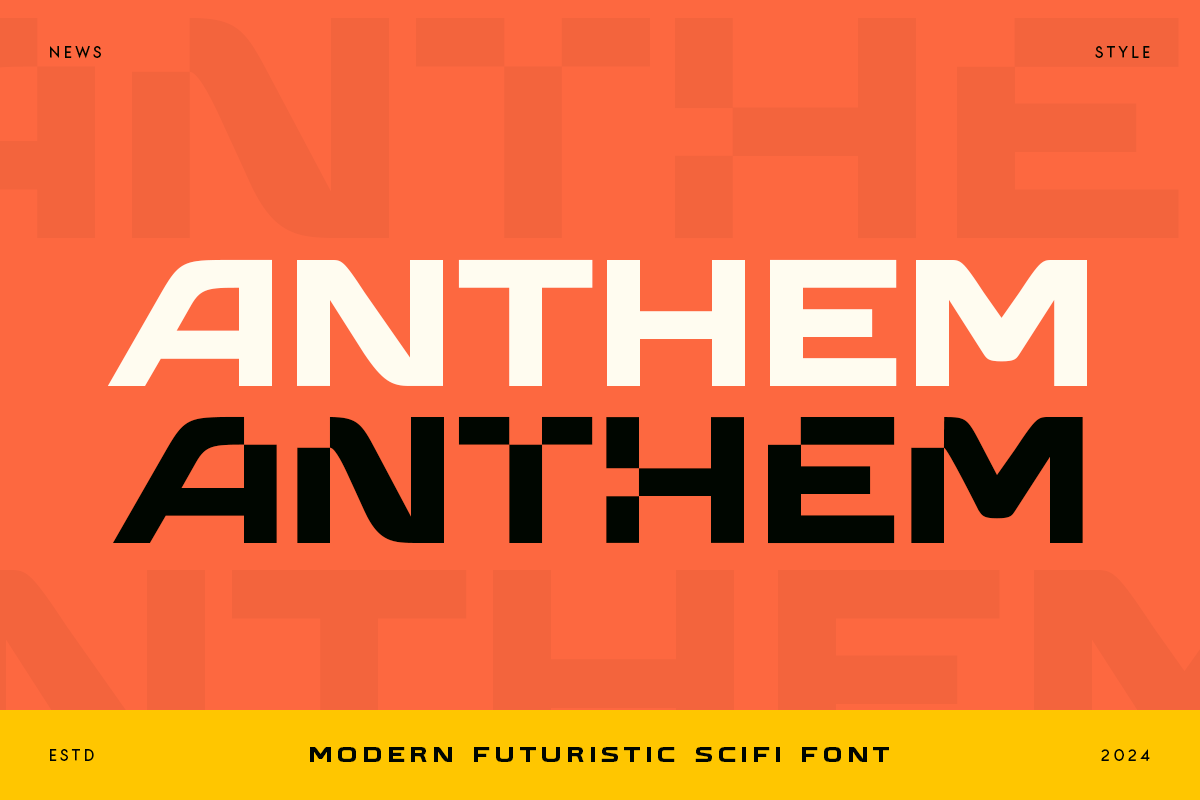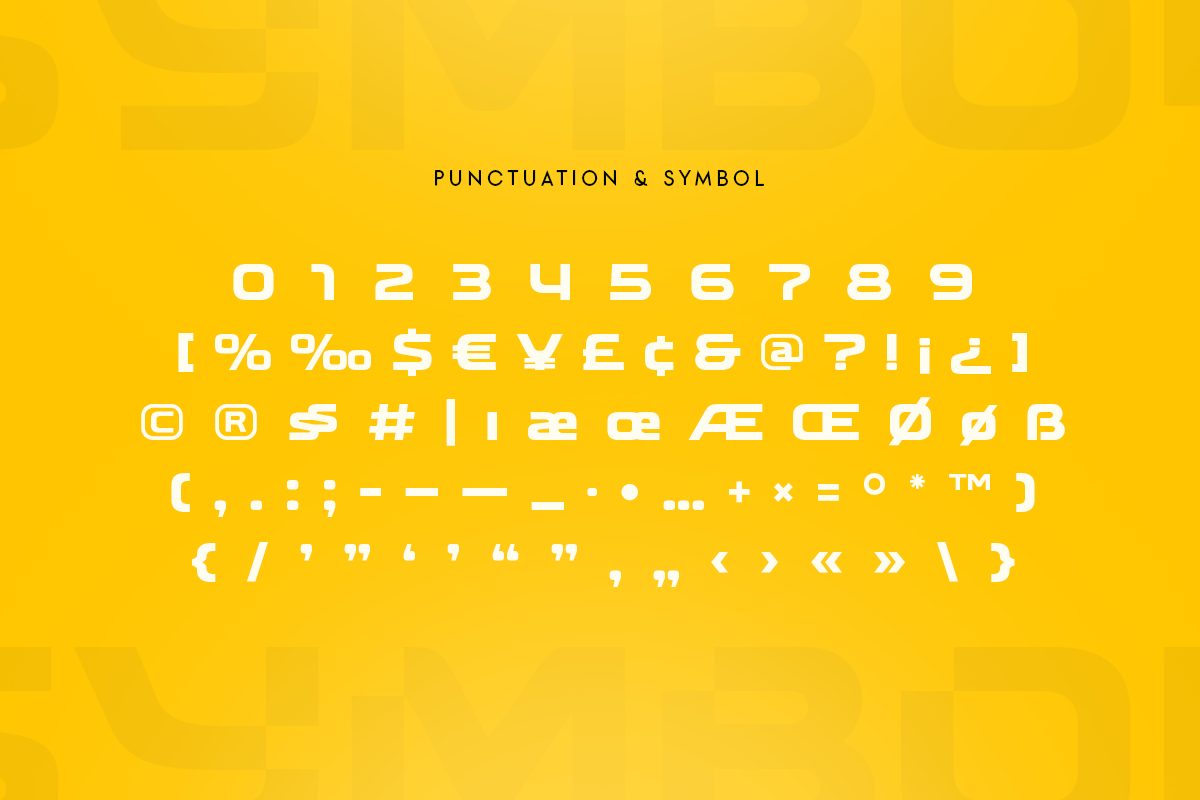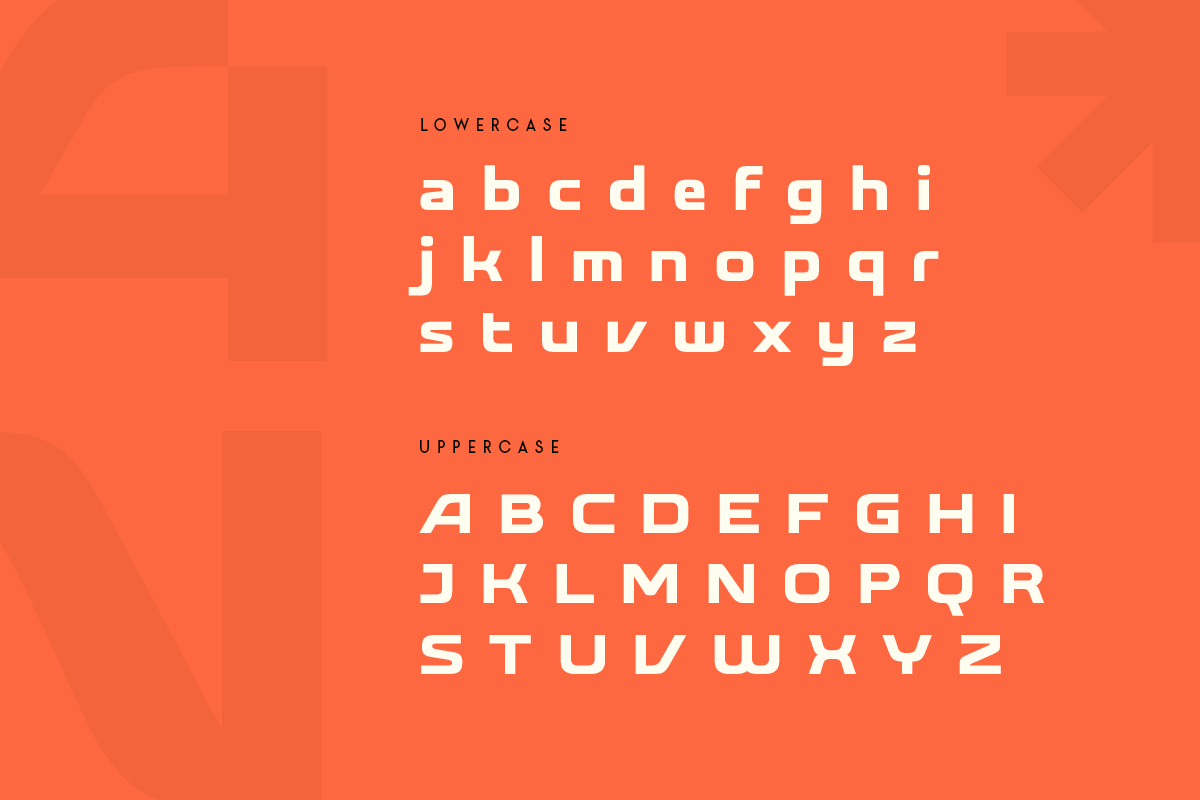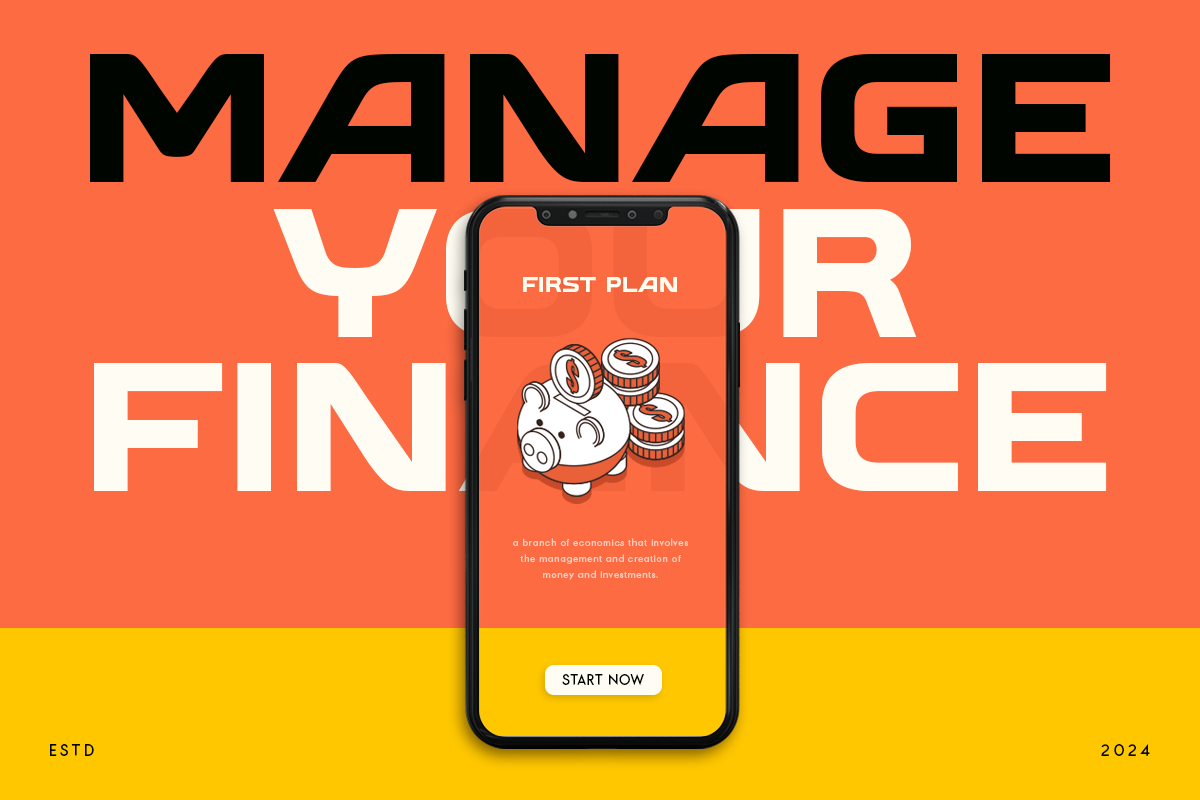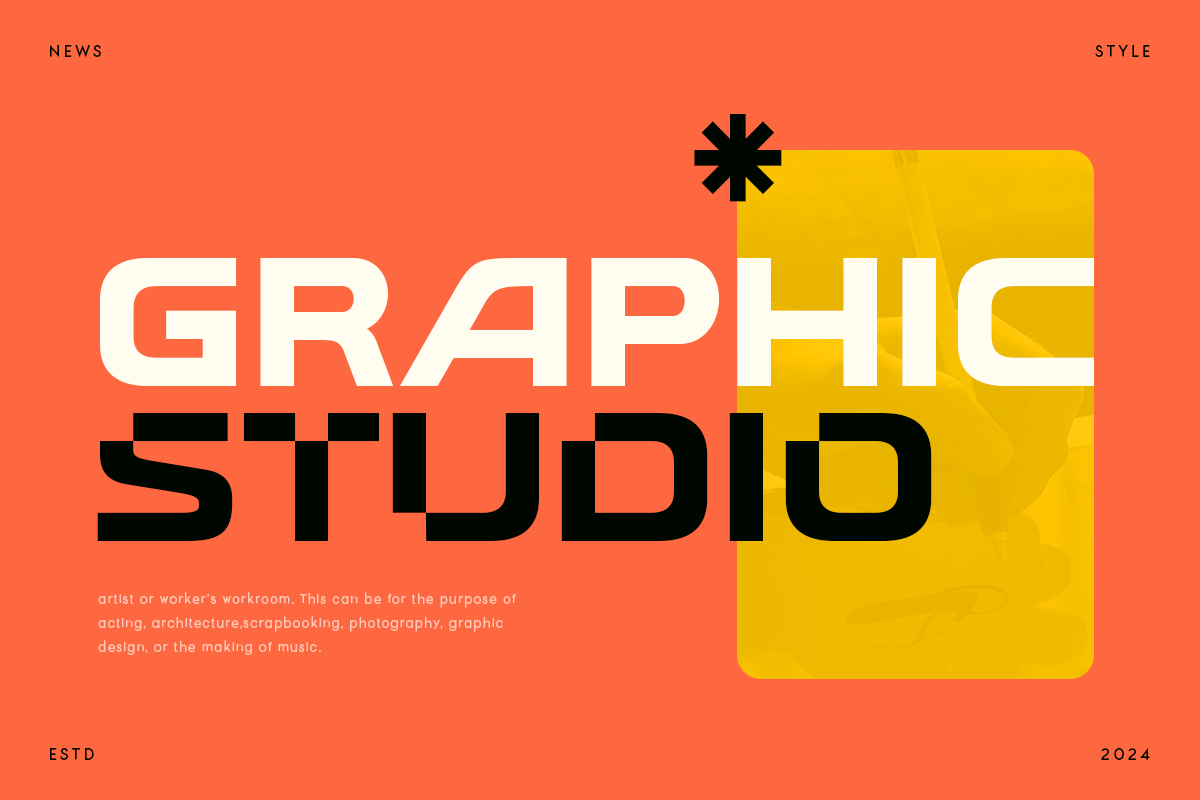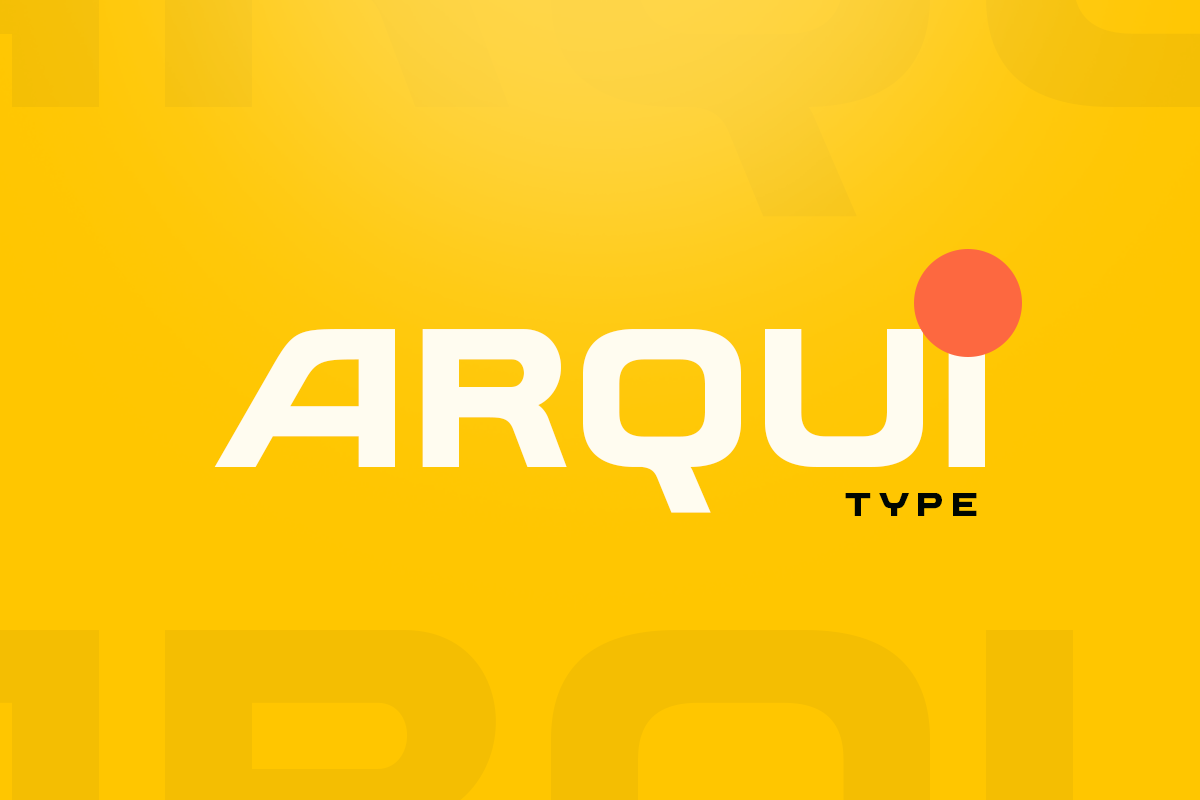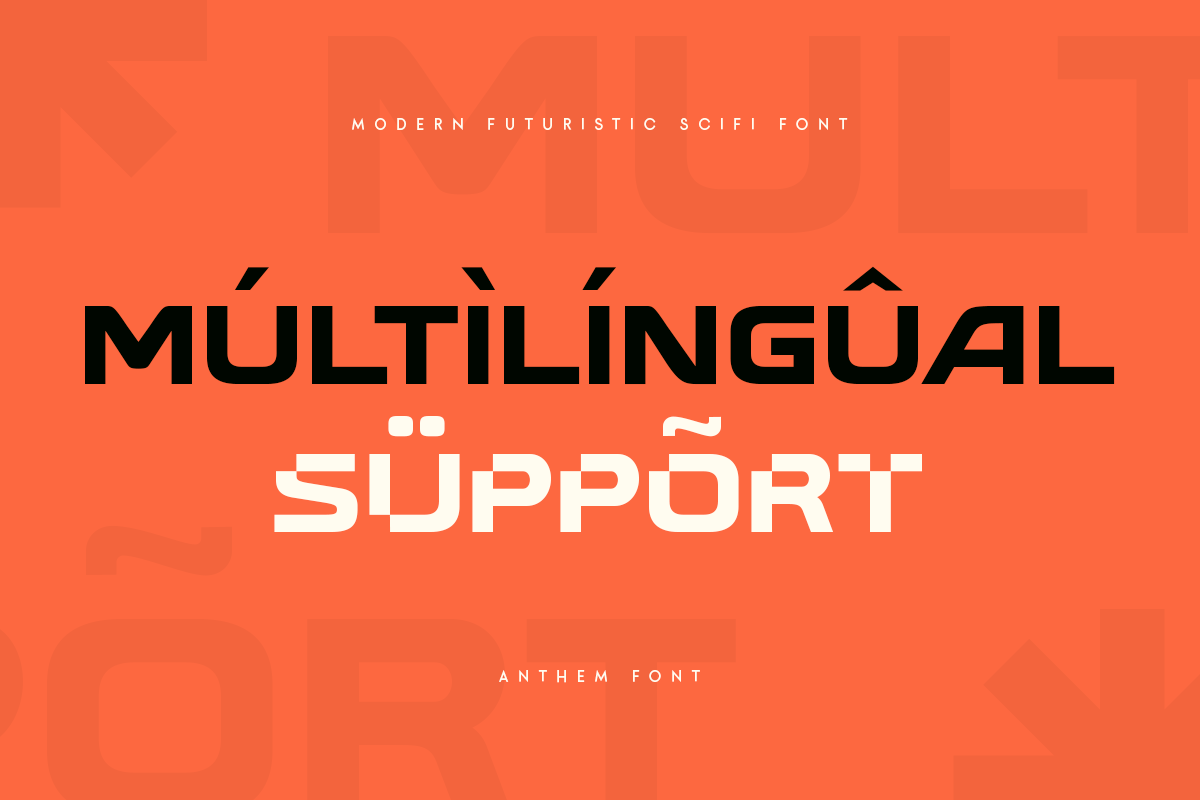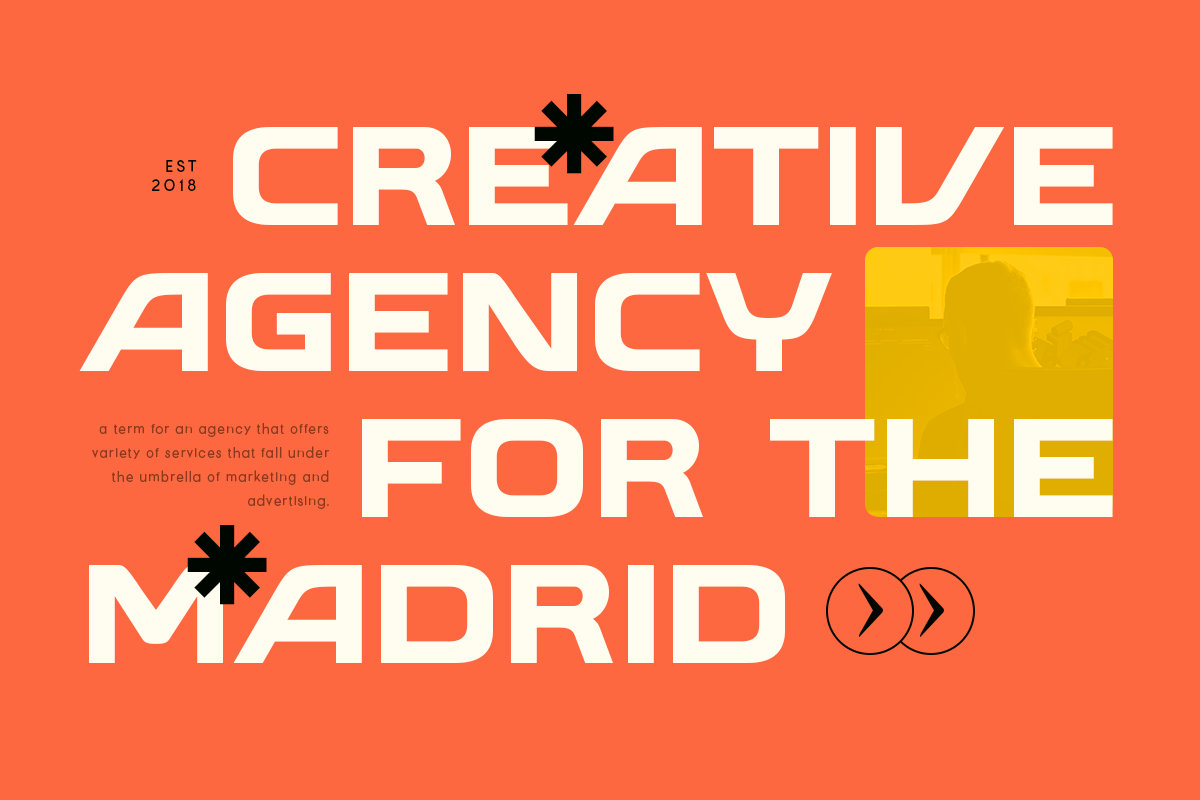
ANTHEM - Modern Futuristic Font
ANTHEM is a Futuristic Sci-fi Font created specifically for Sci-fi, Modern, and Technology designs. Its unique, futuristic styles make your typography stand out, ideal for Cryptocurrency, technology, film, and Sci-fi themes. Anthem's modern aesthetics bring a tech-inspired feel to any project, perfect for expressing your main ideas.
Anthem Futuristic Sci-fi Font features:
- Sleek, futuristic characters designed for Technology-themed creativity
- Includes special Technology and Sci-fi characters
- Perfect for headlines, posters, branding, and digital art
Enhance your designs with Anthem's cutting-edge style and make your projects shine. Enjoy the futuristic touch Anthem brings to your work!